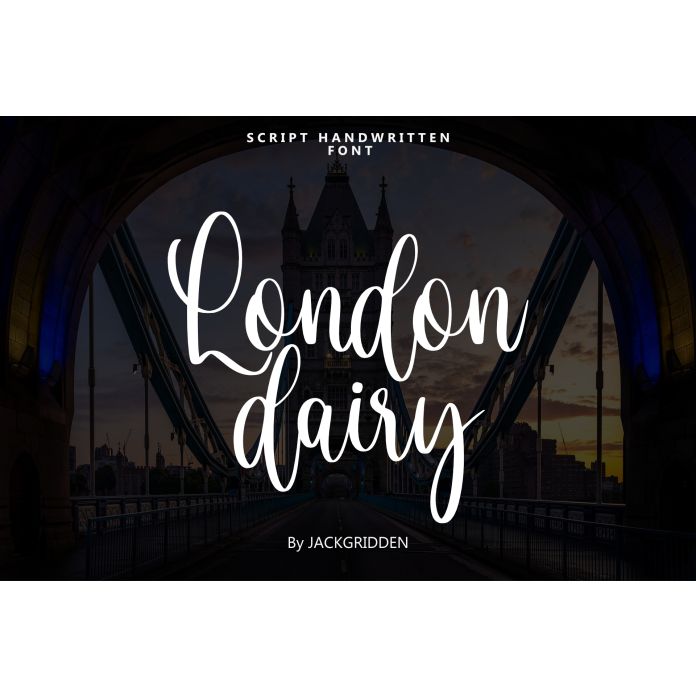
London Dairy is a stylish and versatile font inspired by the charm and elegance of classic London. Perfect for a variety of design projects, from branding and logos to invitations and editorial work, this font blends modern sophistication with timeless appeal. Its clean lines and unique character set make it ideal for both professional and creative uses.